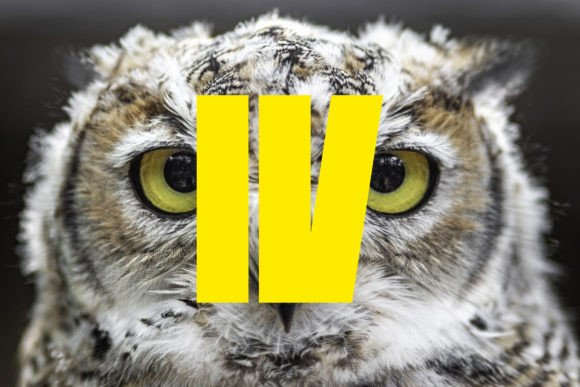
HomePersonal Use FreeFuixg Personal Use Free Fuixg FacebookTwitterPinterestWhatsApp 1 of 1 About Fuixg Font Fuixg is a cool, bold and futuristic display font. This font is ideal for writing web designs, business cards, or pretty much anything else that requires a unique touch. DOWNLOAD NOW People also explored Swan Lake Font Donut Font Baltika Font Pioneer Buttercup Font Caligrhypt Font Sandwich Font MultiType Lines Display Wide Bold Font Christmas Bright 4 Font 115 0 TagsFuixgFuixg Font Previous articleBlack FridayNext articleSabina Illusion LEAVE A REPLY Cancel reply Comment: Please enter your comment! Name:* Please enter your name here Email:* You have entered an incorrect email address! Please enter your email address here Website: Save my name, email, and website in this browser for the next time I comment. Personal Use Free Sathscha Personal Use Free Read more about this font Rothwell Personal Use Free Read more about this font Deco Neue Wilde Personal Use Free Read more about this font Engine Personal Use Free Read more about this font BLOG Free vs Paid Fonts: Why Investing in Premium Fonts Is Worth It Free vs Paid Fonts: Why Premium Fonts Are Worth It in 2025 The debate of free vs paid fonts continues in the design world. While... Free Fonts Risk: Why Free Fonts Can Be Dangerous for Designers Exploring Font Trends The 10 Best Handwriting Fonts to Add Personality to Your Designs